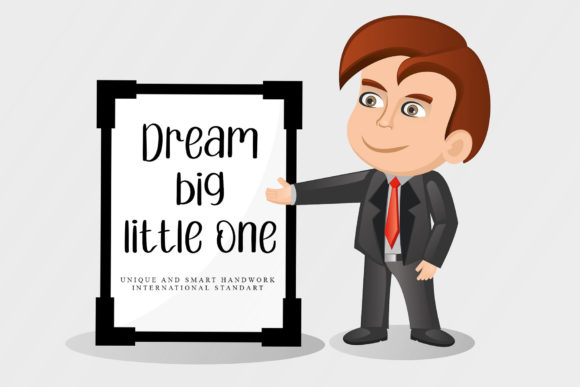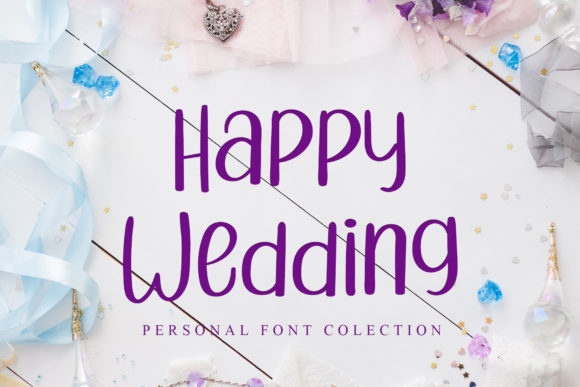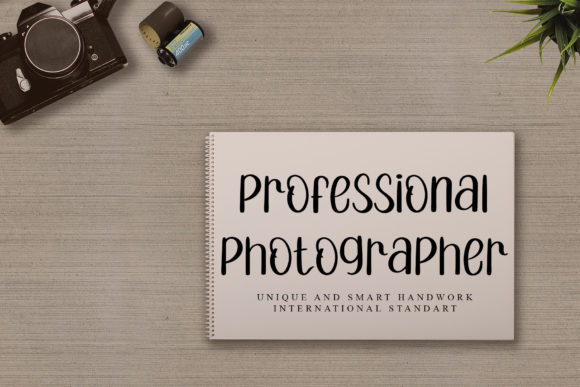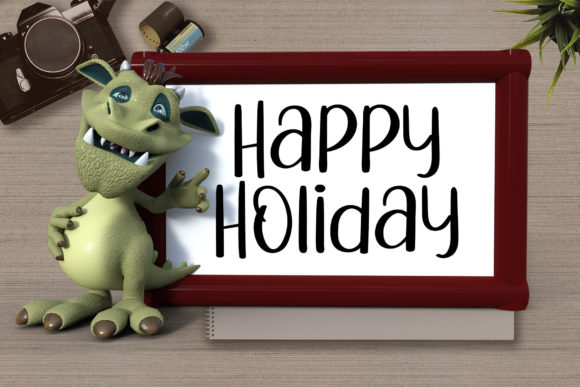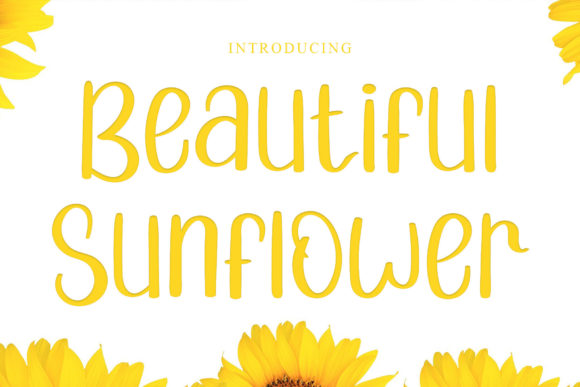
Introducing the Beautiful Sunflower Font: Elevate Your Designs with Elegance
Are you a designer or crafter looking for a unique and elegant handwritten font to add a personal touch to your creations? Look no further than the Beautiful Sunflower Font. This stunning font is perfect for a variety of designs that require a sophisticated and personalized style, such as wedding invitations, thank you cards, weddings, greeting cards, logos, and more.
What Makes the Beautiful Sunflower Font So Special?
The Beautiful Sunflower Font is a one-of-a-kind handwritten font that exudes elegance and sophistication. Its unique and flowing script is perfect for adding a touch of whimsy and romance to any design. Whether you’re creating wedding stationery, branding materials, or social media graphics, this font is sure to make your designs stand out.
Perfect for a Variety of Designs
The Beautiful Sunflower Font is incredibly versatile and can be used for a wide range of designs, including:
- Thank you cards and greeting cards
- Wedding logos and branding materials
- Logos and business cards
- Packaging and labeling
Why Choose the Beautiful Sunflower Font?
There are many reasons why the Beautiful Sunflower Font is a top choice among designers and crafters. Here are just a few:
- Unique and elegant design: The Beautiful Sunflower Font features a one-of-a-kind handwritten script that is both elegant and sophisticated.
- High-quality and versatile: This font is perfect for a wide range of designs and can be used for both personal and commercial projects.
- Easy to read and use: The Beautiful Sunflower Font is clear and easy to read, making it perfect for designs that require a personal touch.
Tips for Using the Beautiful Sunflower Font
Here are a few tips for getting the most out of the Beautiful Sunflower Font:
- Pair it with other fonts: The Beautiful Sunflower Font pairs perfectly with other fonts, such as sans-serif fonts or serif fonts.
- Use it for headings and titles: This font is perfect for headings and titles, and can add a touch of elegance to any design.
- Experiment with colors and textures: The Beautiful Sunflower Font looks great in a variety of colors and textures, so don’t be afraid to experiment and find the perfect combination for your design.
If you’re looking for a unique and elegant handwritten font to add a personal touch to your designs, the Beautiful Sunflower Font is the perfect choice. With its flowing script and sophisticated design, this font is perfect for a wide range of designs, from wedding stationery to branding materials. So why wait? Download the Beautiful Sunflower Font today and start creating beautiful designs that stand out from the crowd.
- Unique and elegant handwritten font
- Perfect for wedding invitations, thank you cards, weddings, greeting cards, logos, and more
- High-quality and versatile
- Easy to read and use